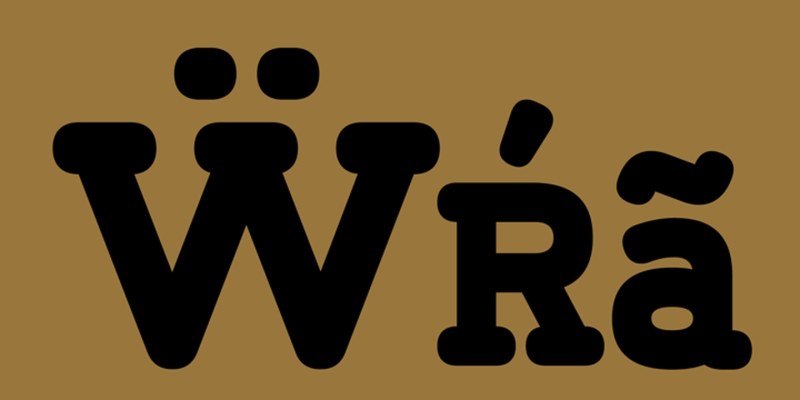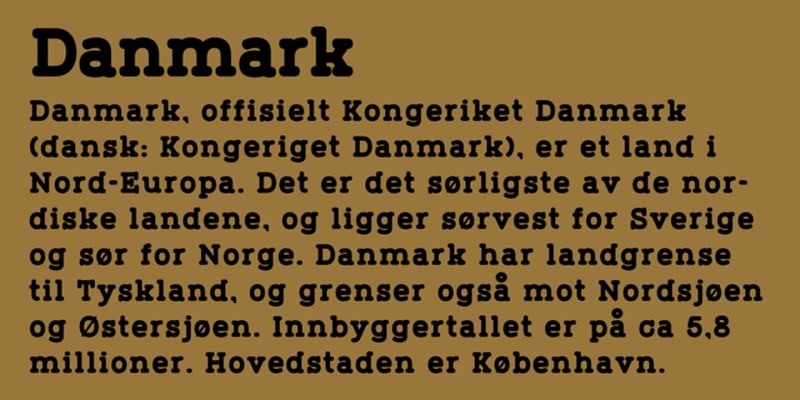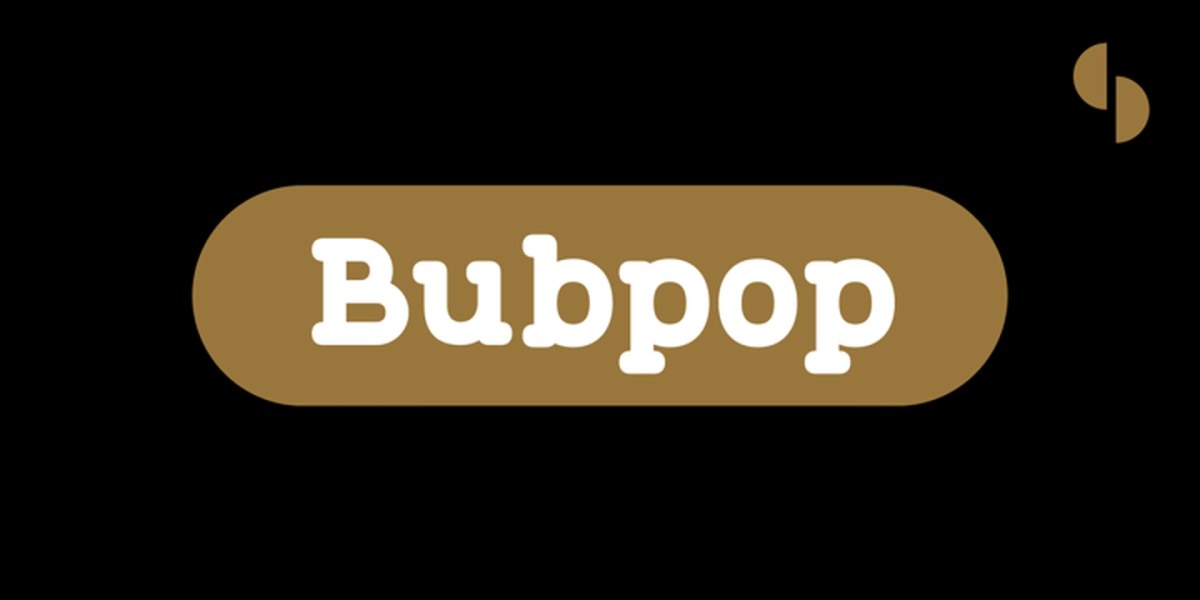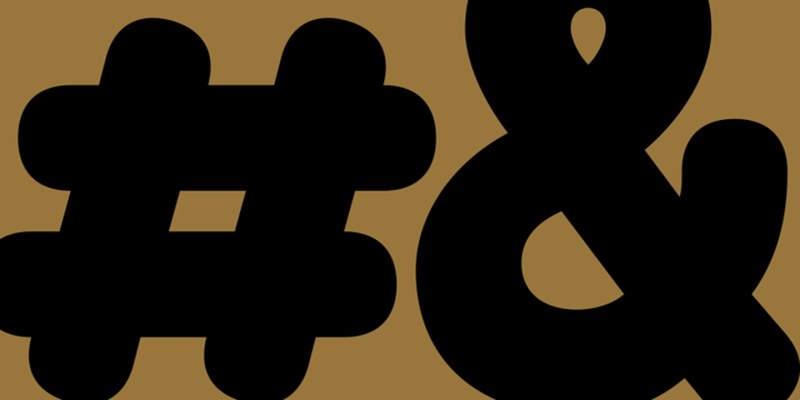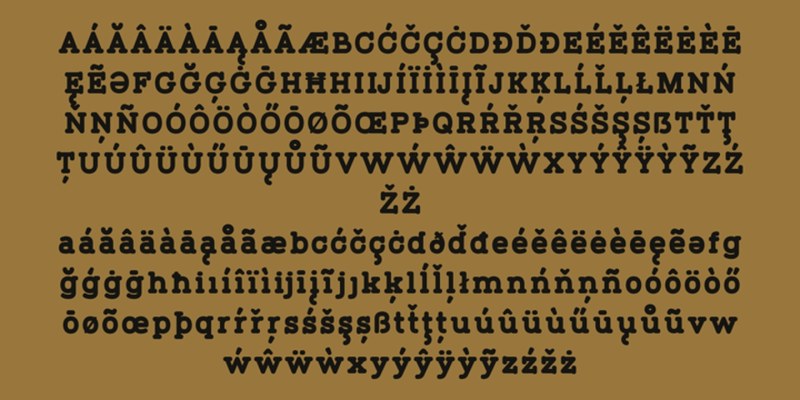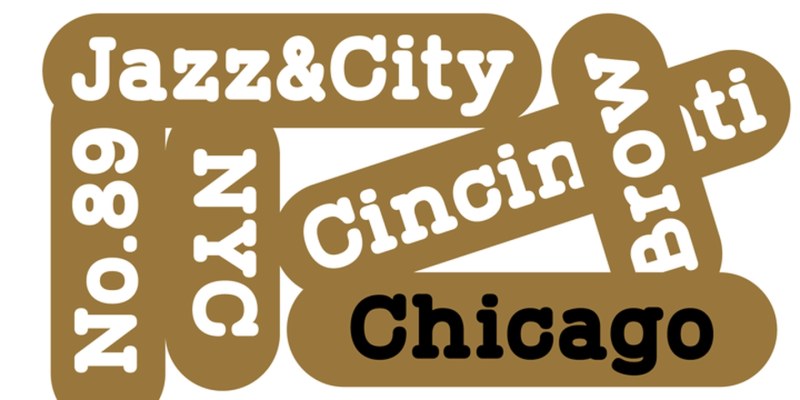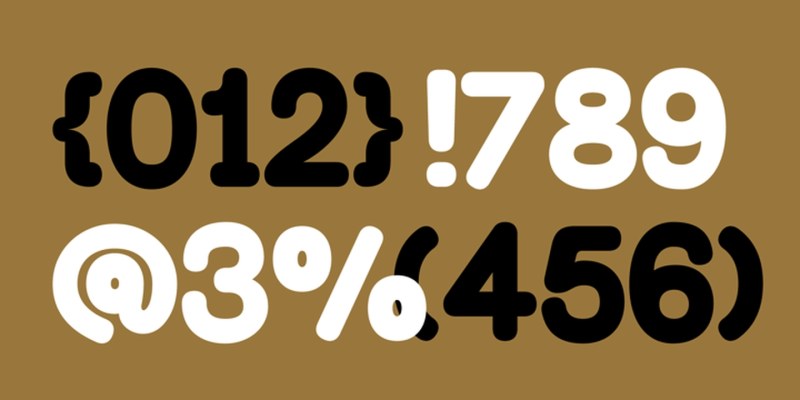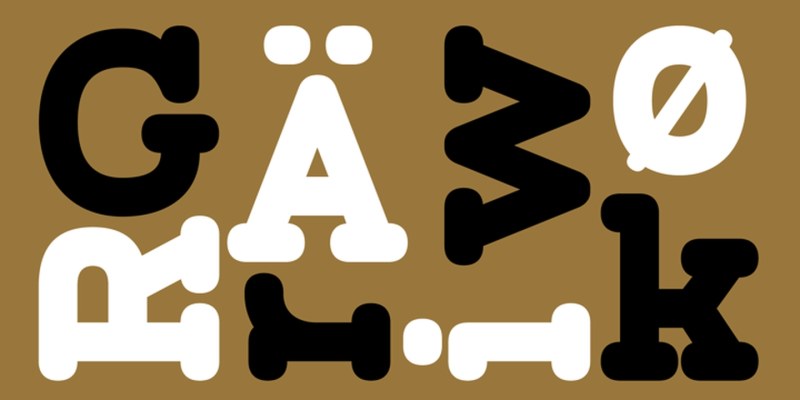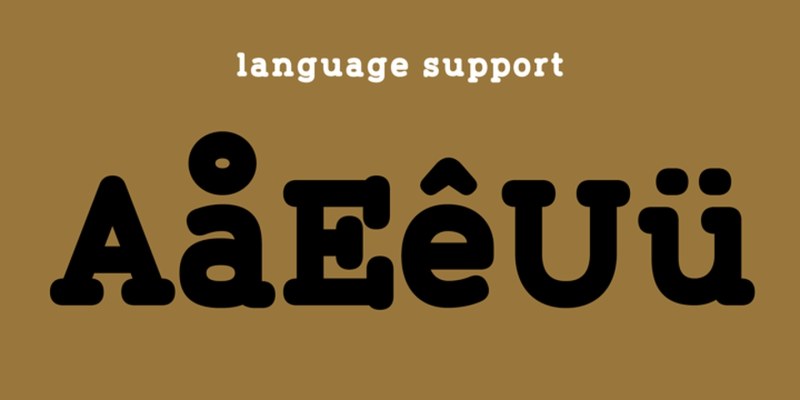
Bubpop Font
The name of this font is Bubpop. The features of the serif body are combined with the non-sans-serif body. Structuring and reconstructing the serif font, we get a very modern font effect. The font effect is not only rounded, but also has clever ideas and solemn details. This treatment makes this font more widely used and remains different.
Bubpop Font is a Slab Serif Fonts font that brings a professional and versatile look to your projects. The name of this font is Bubpop.